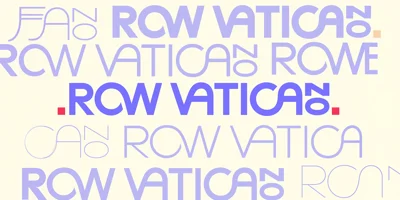
Row Vaticano Font
This sacred typeface excels in religious institution branding, papal document layouts, cathedral signage design, ecclesiastical publication materials, spiritual retreat centers, religious ceremony programs, Vatican-inspired architecture, and divine communications. Its holy character makes it perfect for projects requiring sacred authority and ecclesiastical sophistication.
Row Vaticano Font creates excitement through its divine magnificence that captures the eternal grandeur of Vatican traditions and sacred ecclesiastical heritage. The font's majestic curves and holy letterforms create an atmosphere of spiritual reverence that resonates with audiences seeking divine experiences and religious authenticity. Its sacredly crafted character variations deliver cathedral-worthy readability while maintaining distinctive ecclesiastical personality that reflects the timeless power of sacred design and the transformative impact of divine inspiration and spiritual communication.
The Row Vaticano Font family includes multiple sacred variations such as regular, light, bold, ornate, and ceremonial styles. Each family member maintains the distinctive Vatican aesthetic while offering different levels of ecclesiastical sophistication for various religious applications. This blessed collection empowers designers to create reverent compositions that celebrate the full spectrum of sacred experiences from intimate prayer moments to grand ceremonial proclamations.
The Row Vaticano Font provides designers with access to premium ecclesiastical typography that brings authentic Vatican elegance to any project. Its sacred character and divine appeal make it ideal for creating memorable religious brands and engaging spiritual communications that inspire faith. Whether developing church identities, designing religious materials, or crafting sacred marketing campaigns, this font delivers the Vatican authenticity and ecclesiastical sophistication essential for connecting with audiences who seek spiritual guidance, appreciate sacred traditions, and embrace the eternal beauty of Vatican heritage and divine ecclesiastical expression.